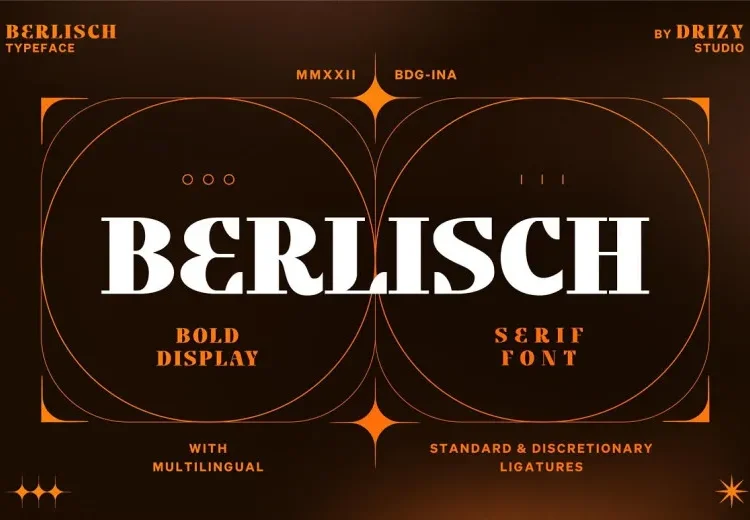
Berlisch Font
Berlisch by Drizy is a refined display serif font designed to bring a touch of elegance and sophistication to your projects. With its timeless and stylish aesthetic, Berlisch effortlessly enhances magazine layouts, logotypes, and other graphics requiring a modern yet polished appearance. Its classic design elements make it versatile for various creative applications.
Whether you’re crafting striking headlines, sophisticated branding materials, or captivating visuals, Berlisch ensures your work stands out with its distinct charm and graceful details. It’s the perfect choice for those seeking to infuse their designs with a sense of refinement and style.